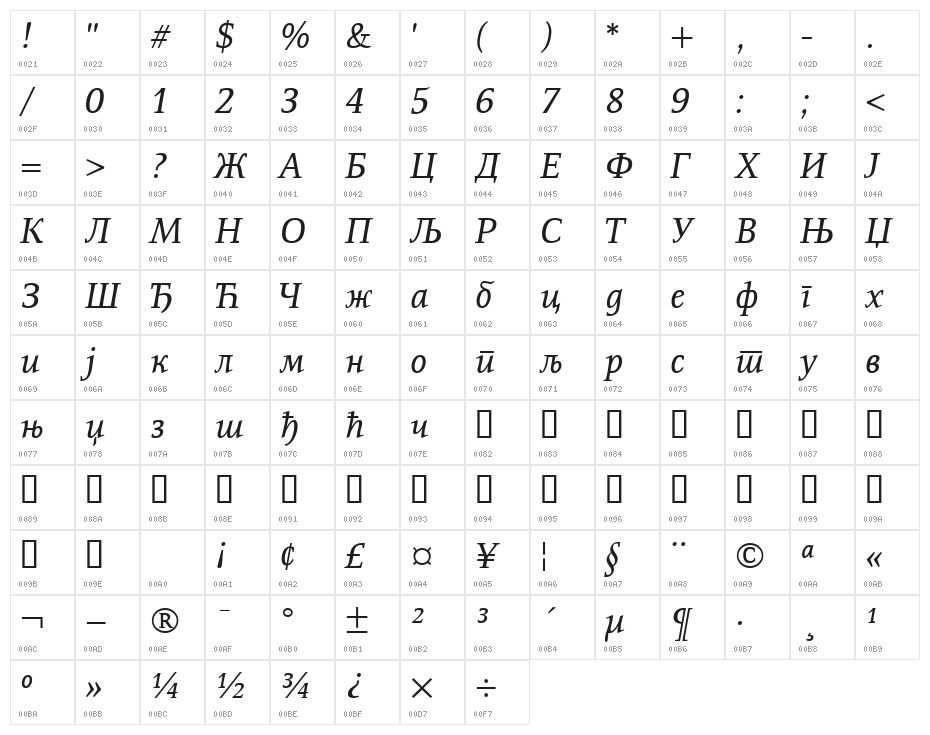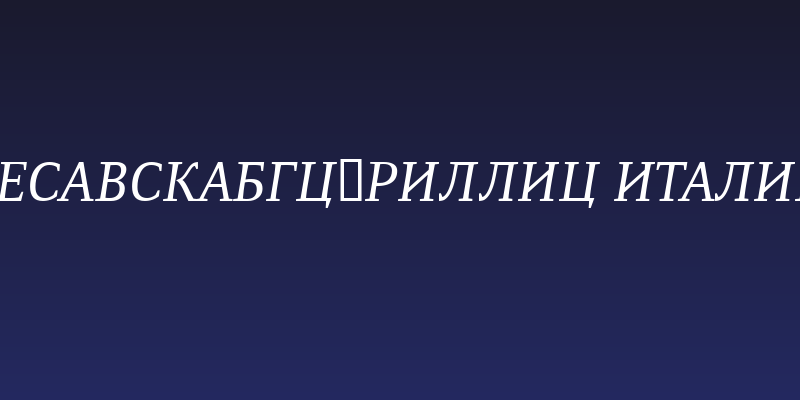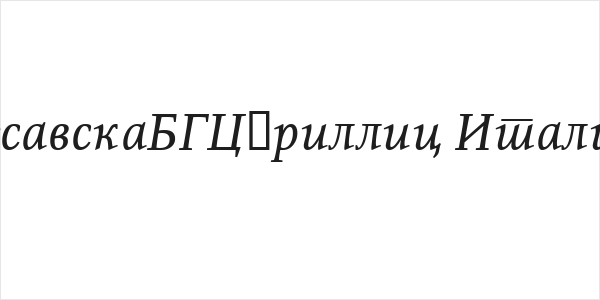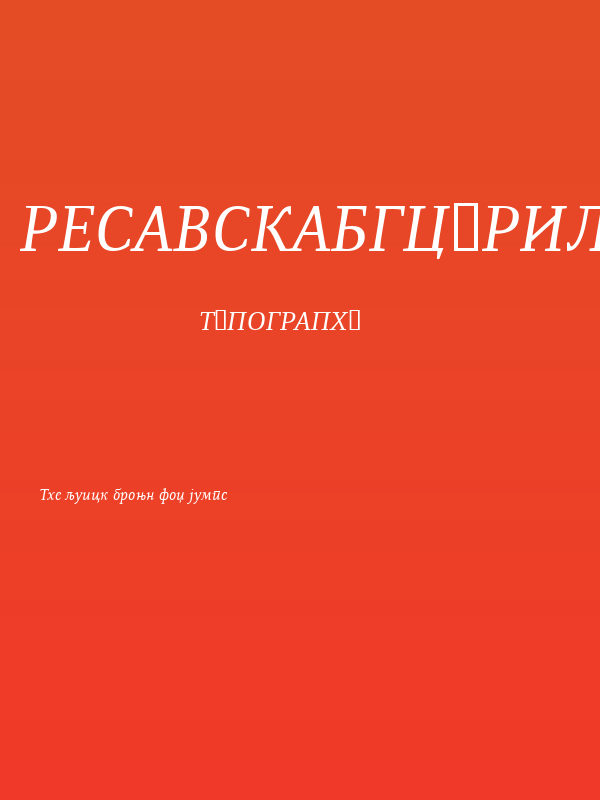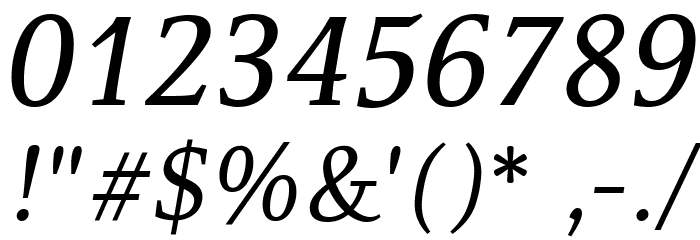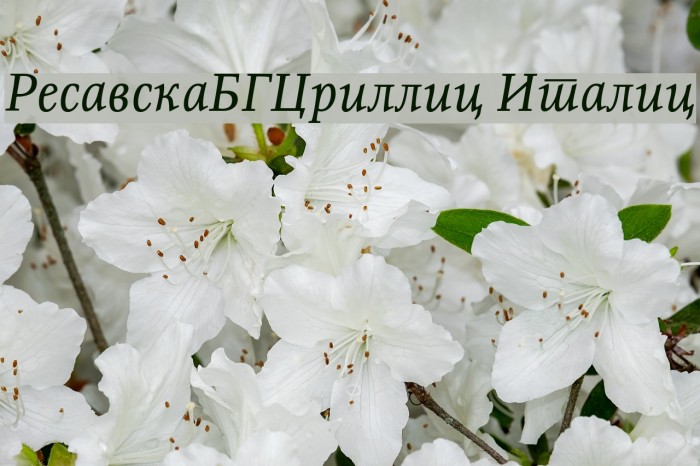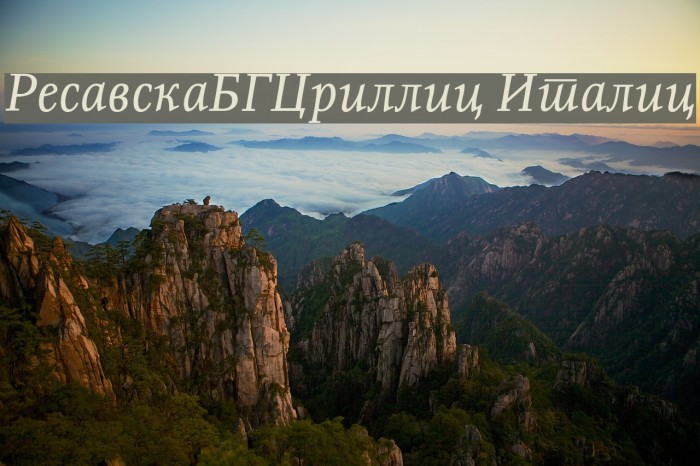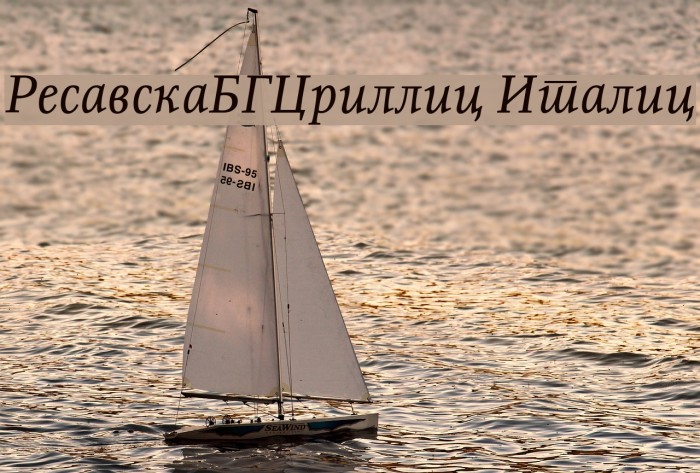
ResavskaBGCyrillic Italic Font
ResavskaBGCyrillic Italic Description
This font features a classic serif style with a distinct italic slant, giving it an elegant and sophisticated appearance. The Cyrillic characters are well-defined, maintaining clarity and readability. The uppercase letters are bold and commanding, while the lowercase letters exhibit a graceful flow. Numerals are consistent with the overall style, ensuring uniformity across text. Special characters are included, providing versatility for various uses. The font's design is suitable for both formal and creative projects, offering a timeless aesthetic.
| Overall Style | Classic |
| Use Case | Headlines, Body text, Logos |
| Proposed Projects | Ideal for book covers, formal invitations, branding, and editorial design. |